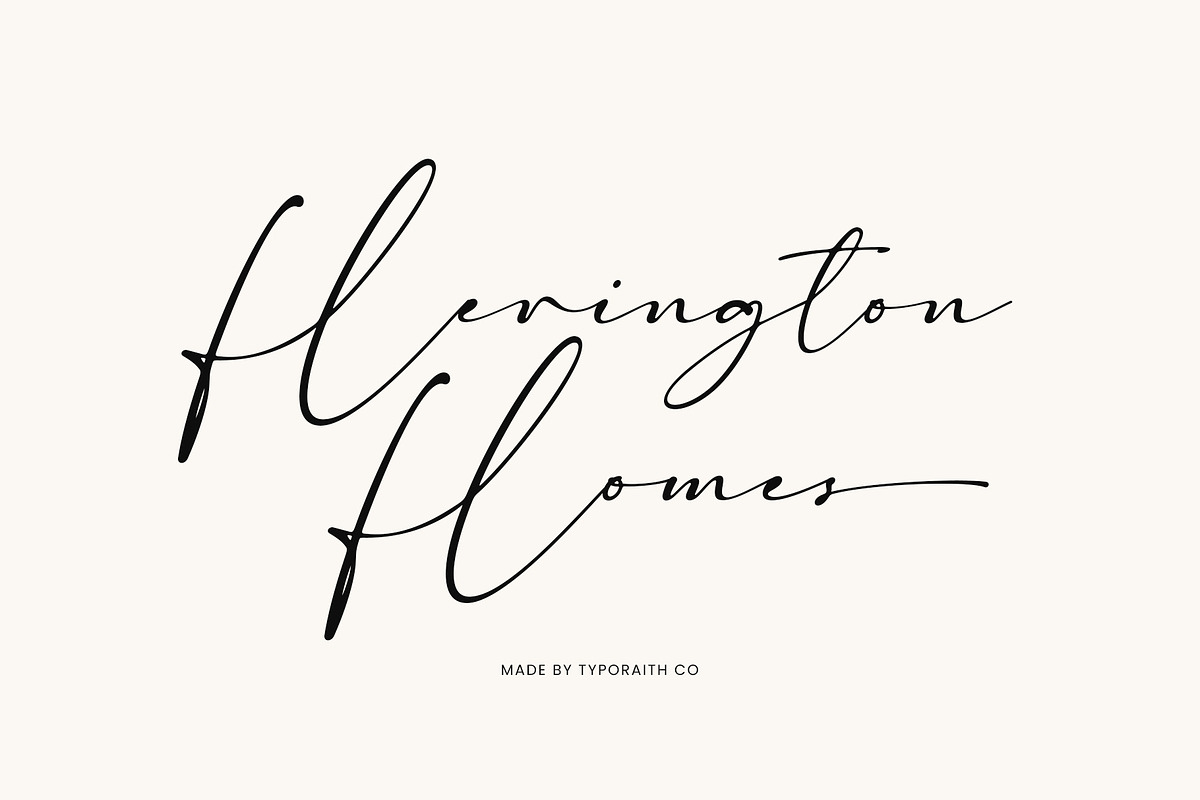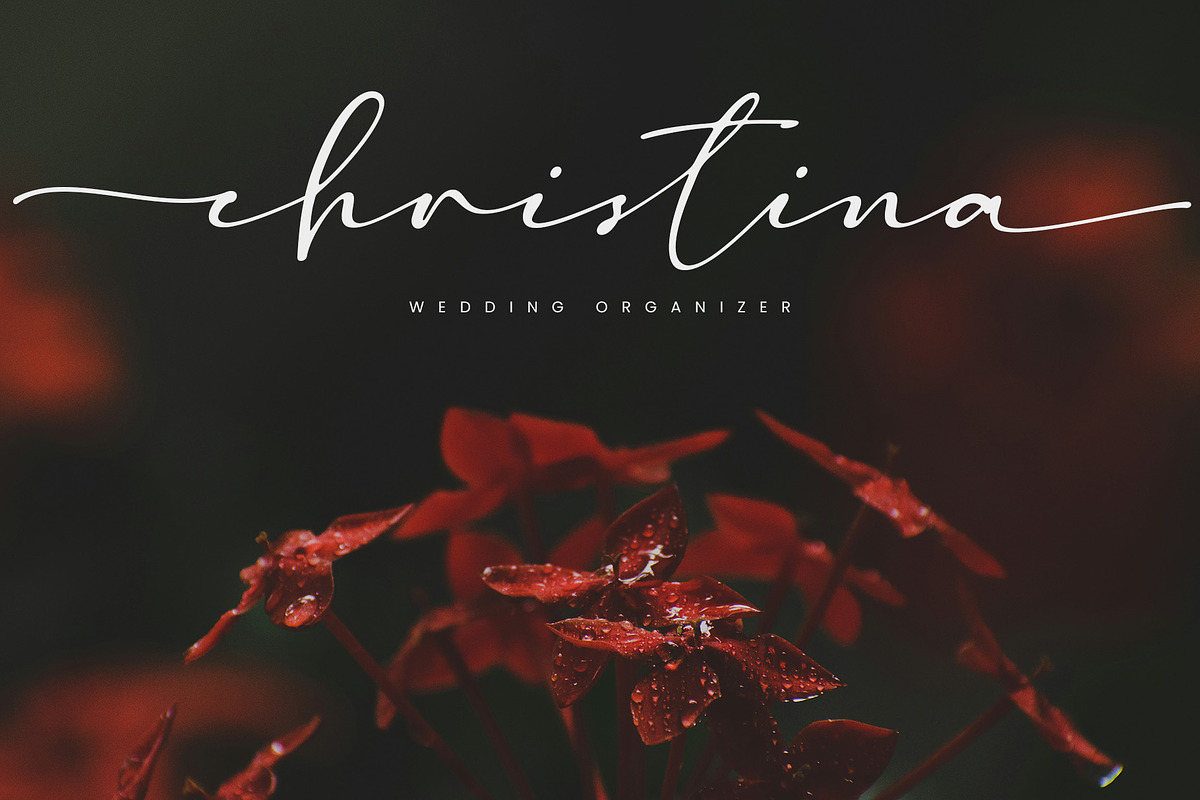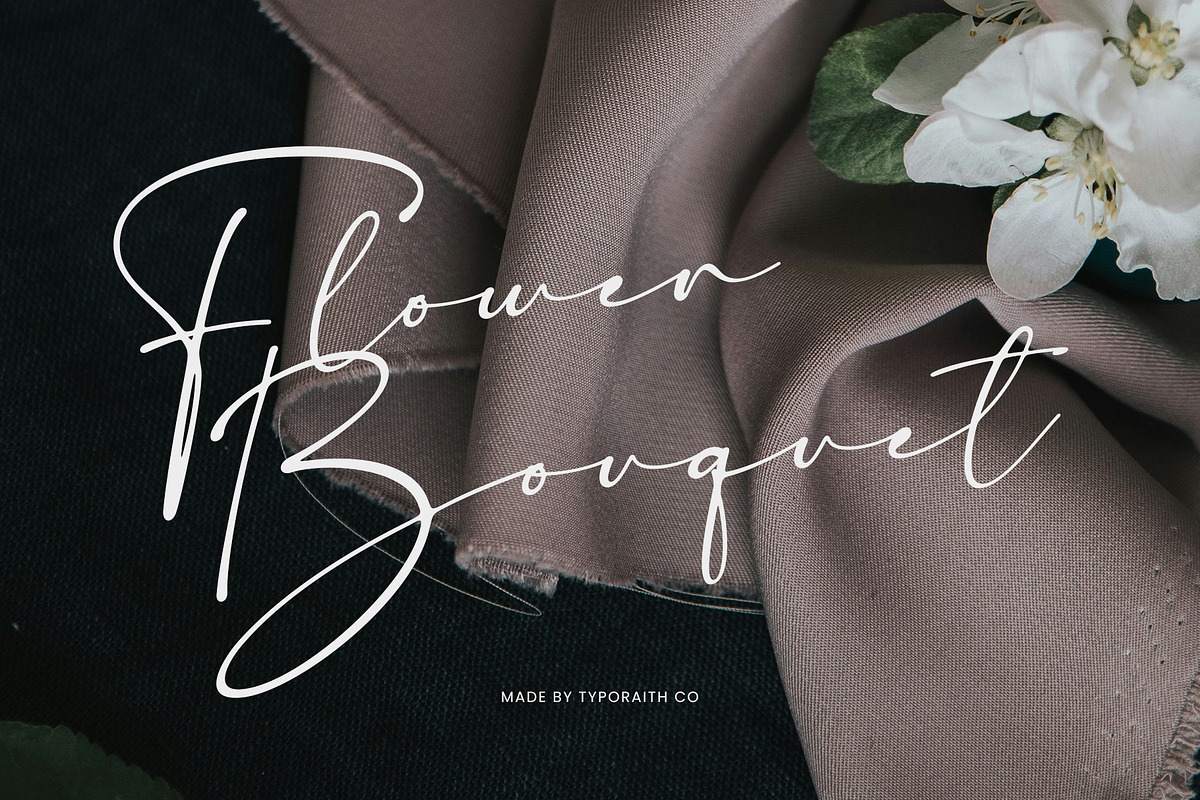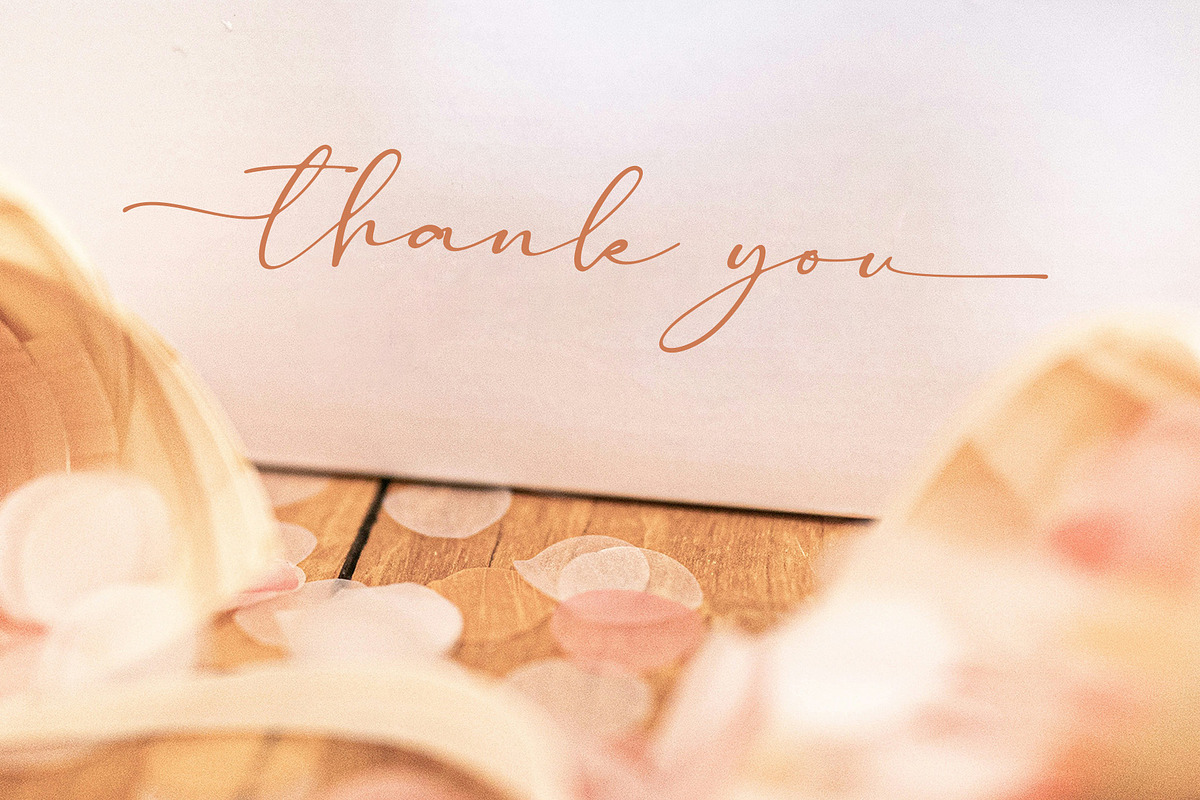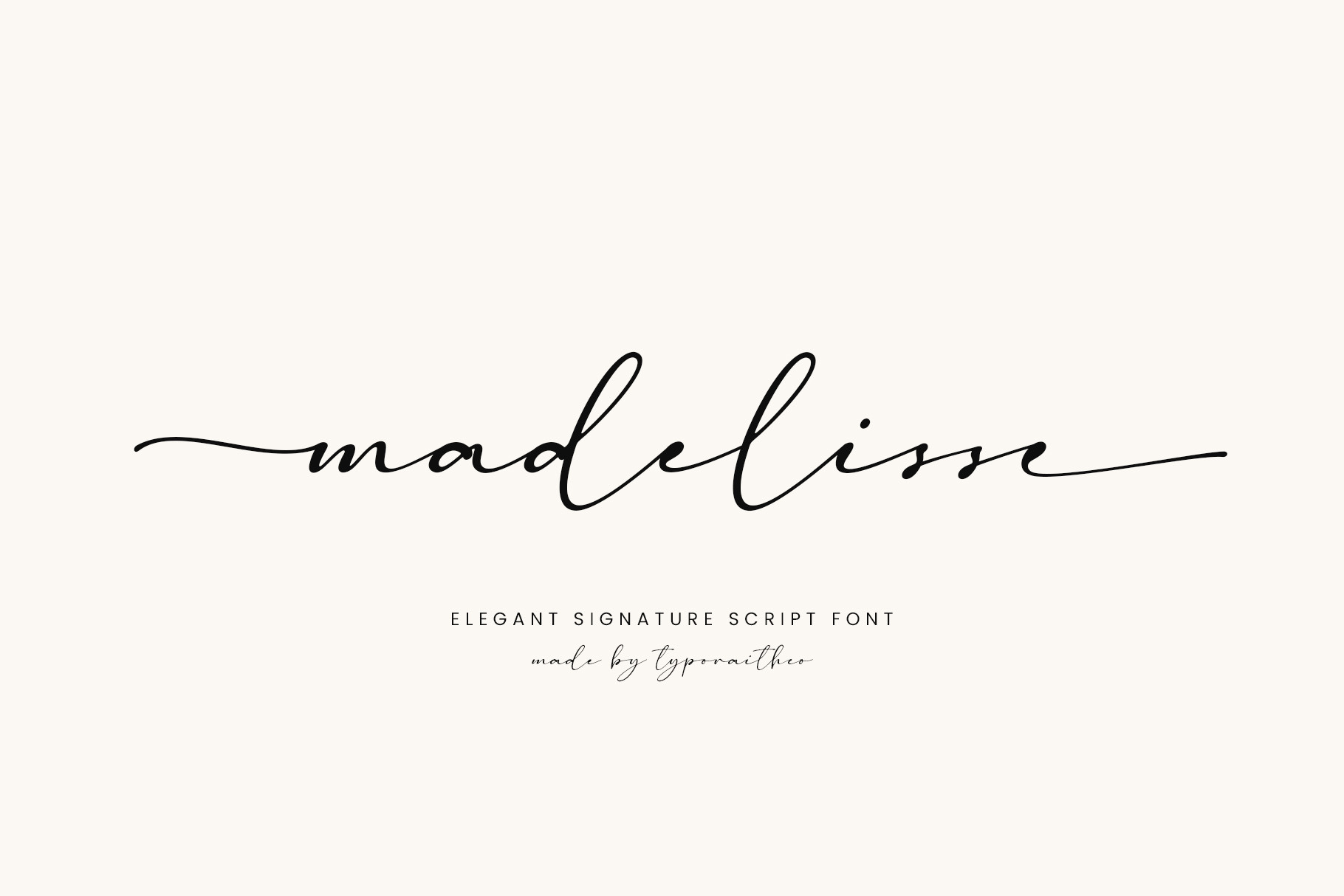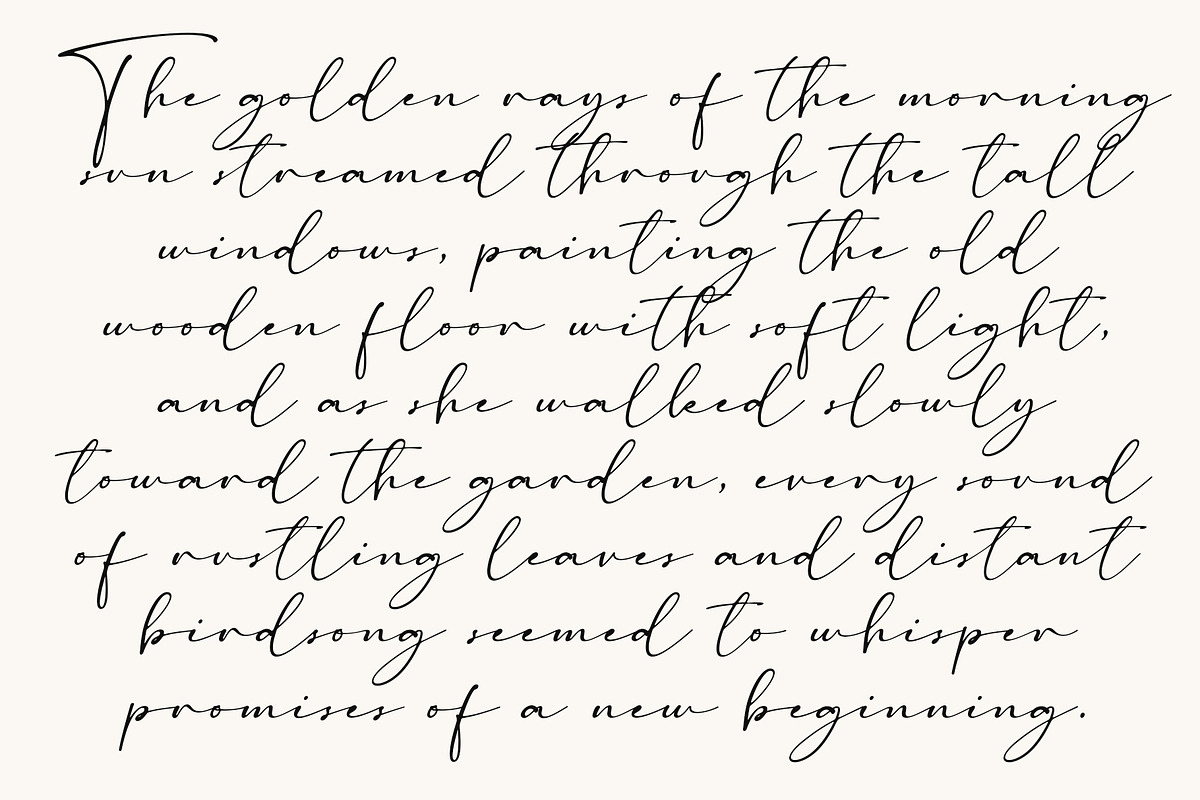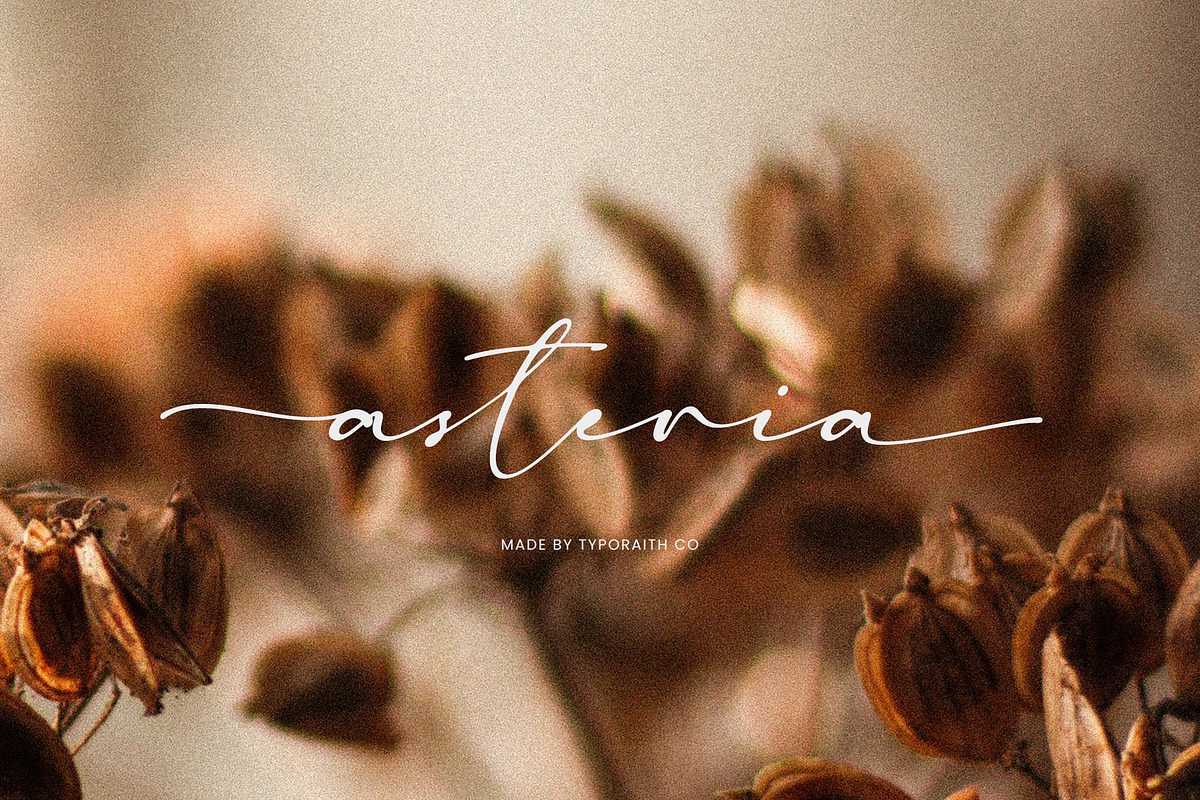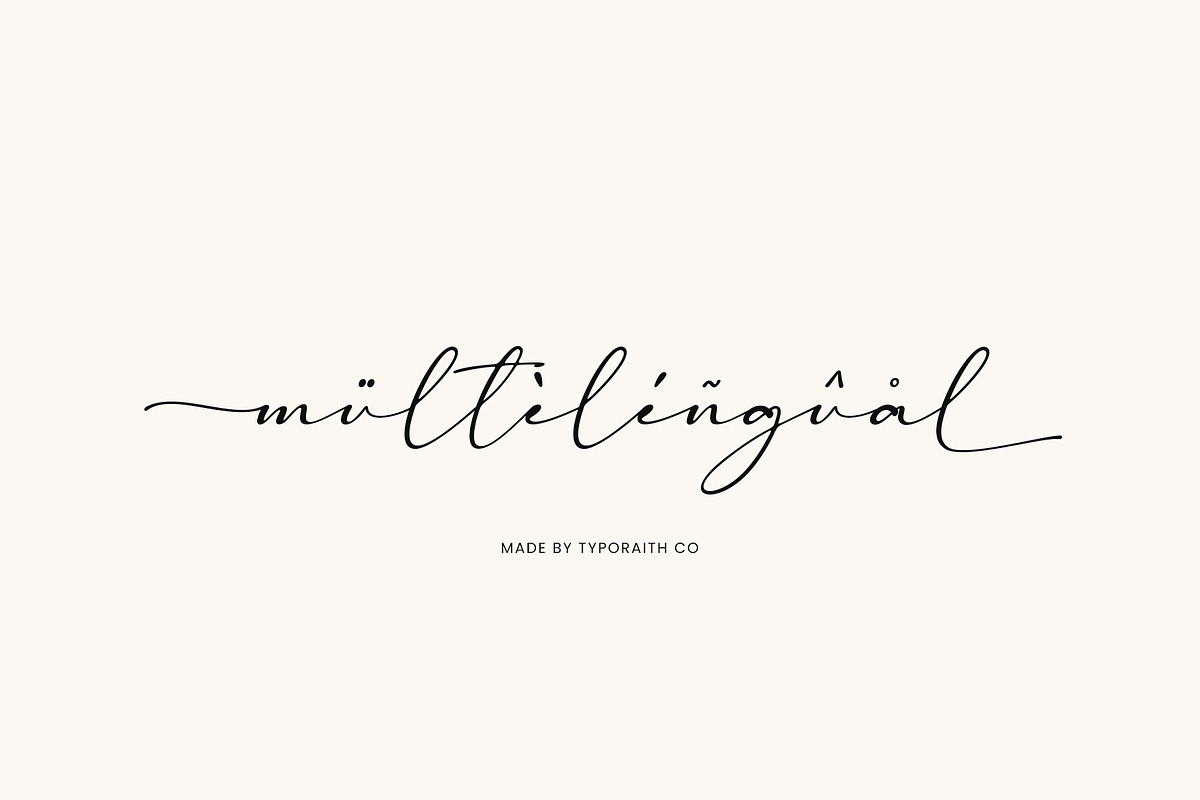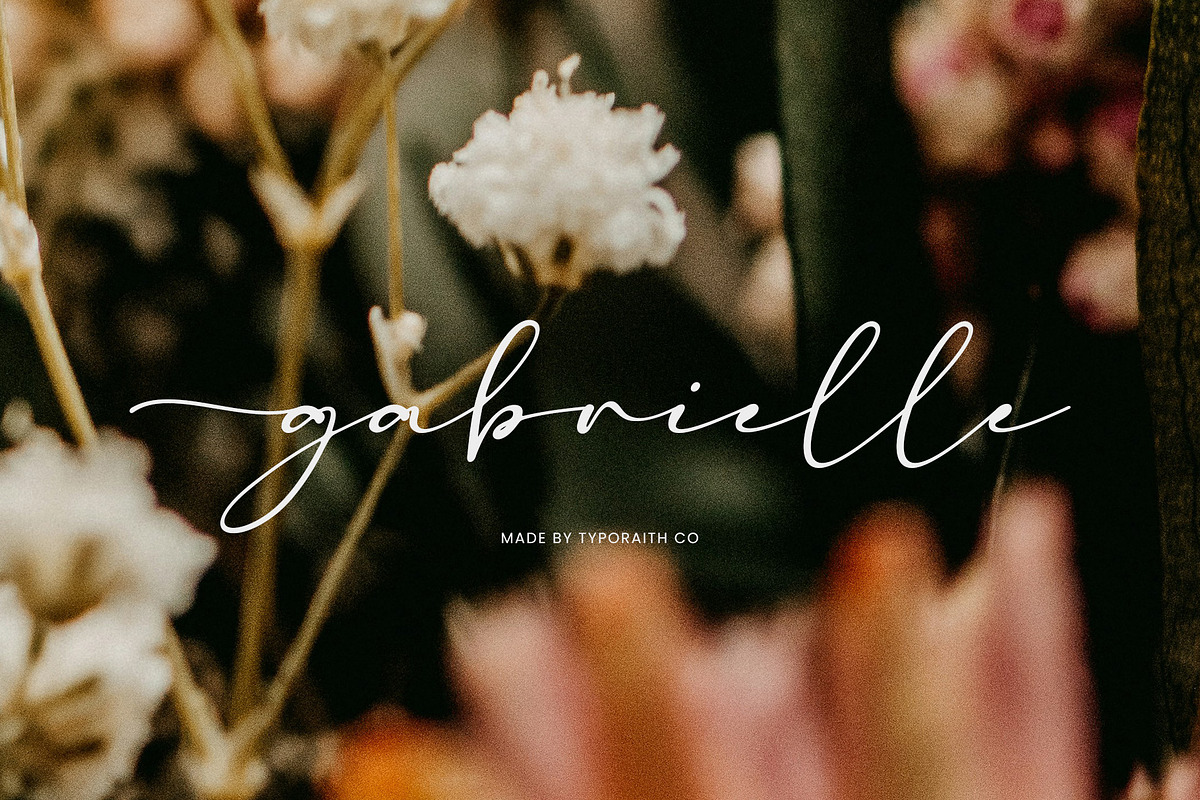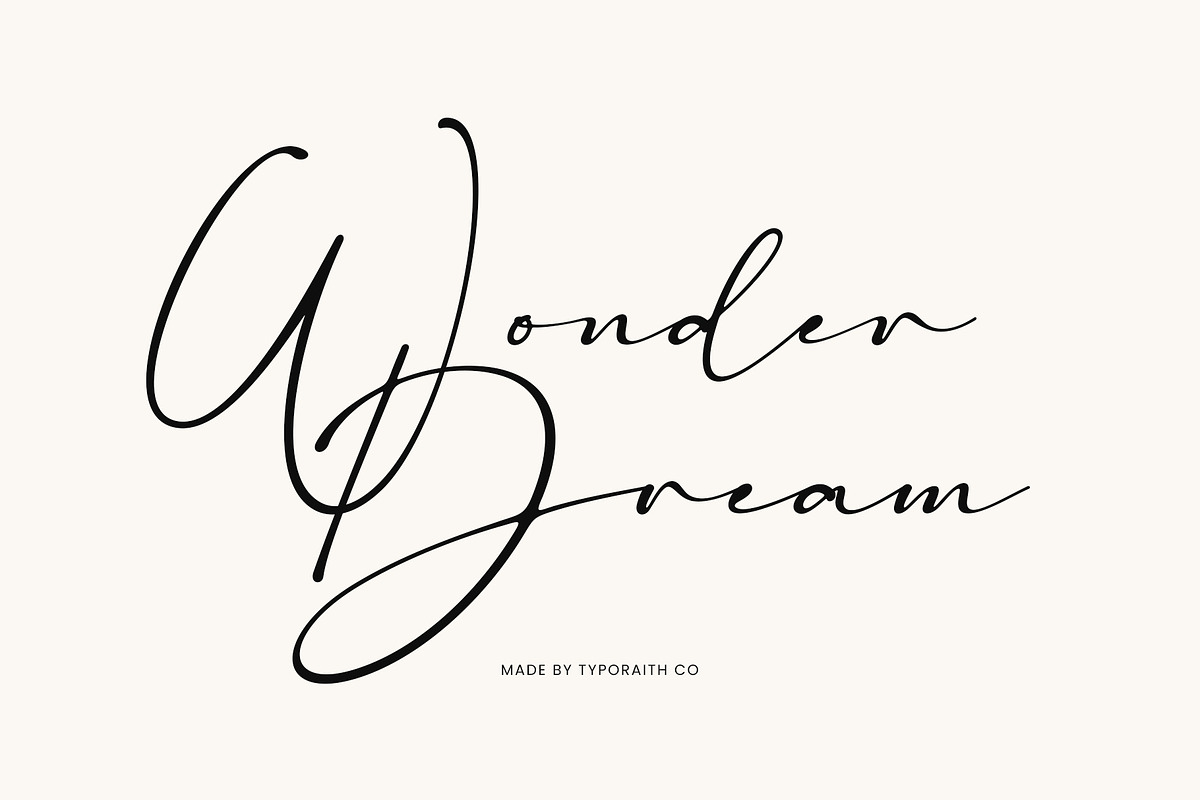
Madelisse – Elegant Signature Font
Madelisse is a graceful and modern signature script font that exudes elegance and sophistication. With its smooth curves and delicate strokes, this font is perfect for adding a personal and luxurious touch to your designs.
Branding & logo design
Wedding invitations
Photography watermark
Feminine product packaging
Fashion magazines
Quotes, cards & stationery
Full set of uppercase & lowercase letters
Numbers, punctuation & multilingual support
Alternates & Ligatures
Madelisse brings the charm of handwritten elegance to every project, creating a timeless, effortless beauty that elevates your work.